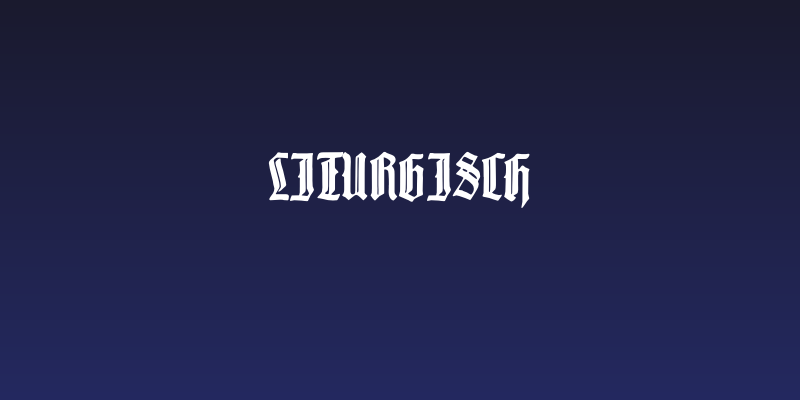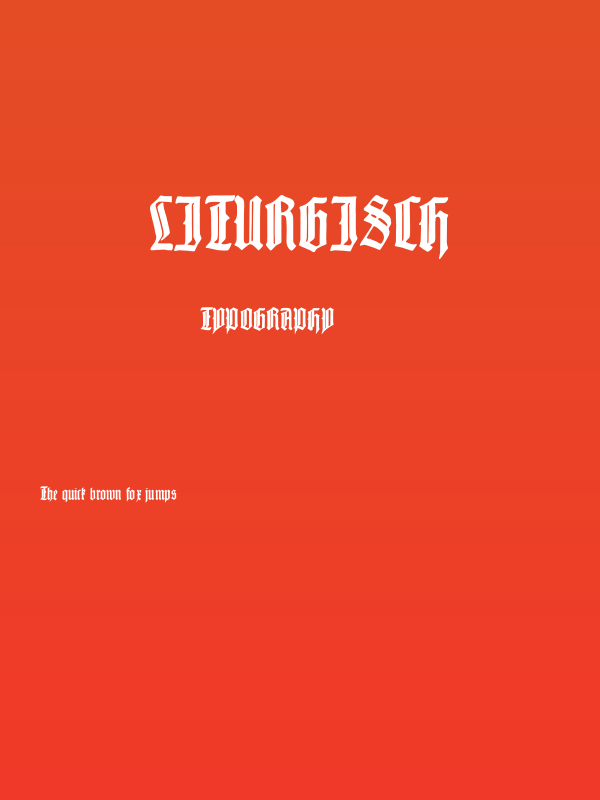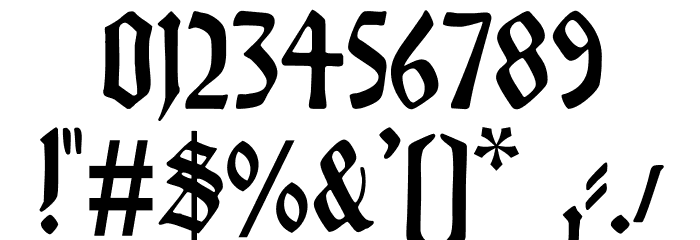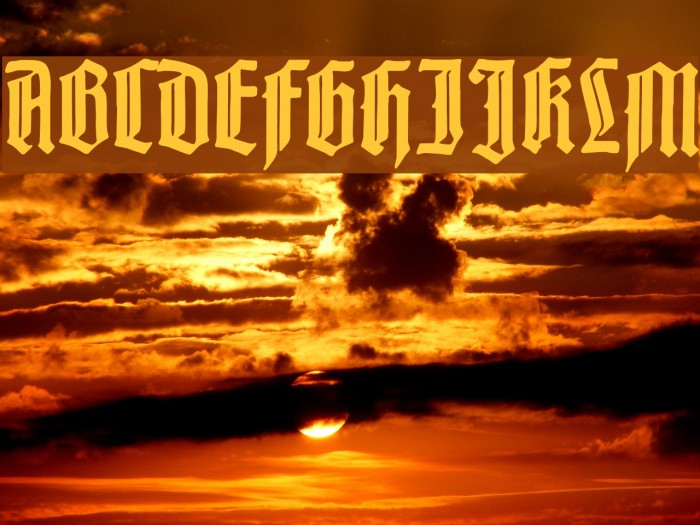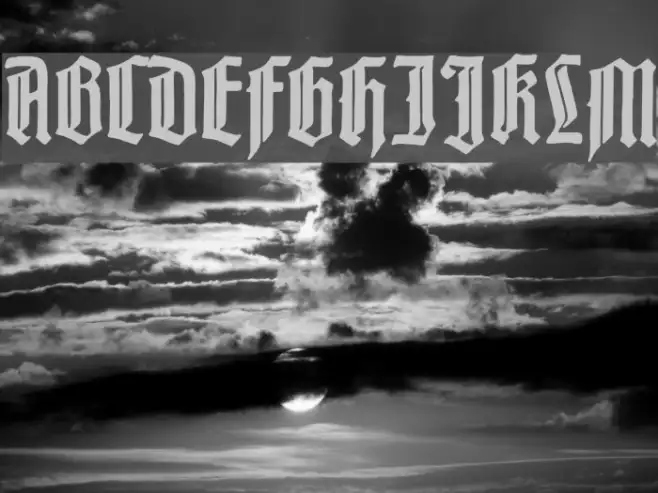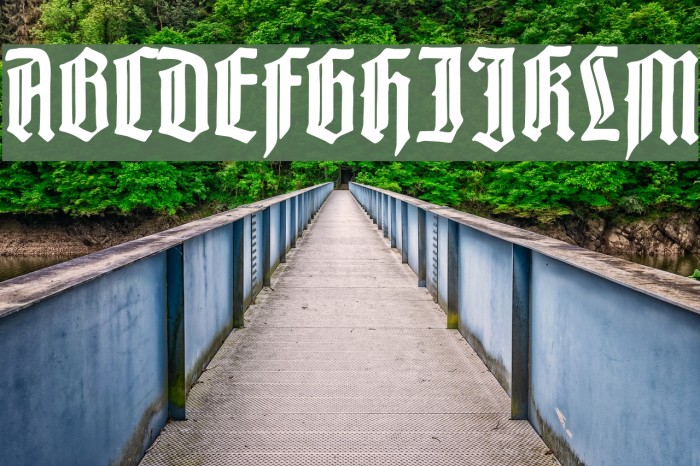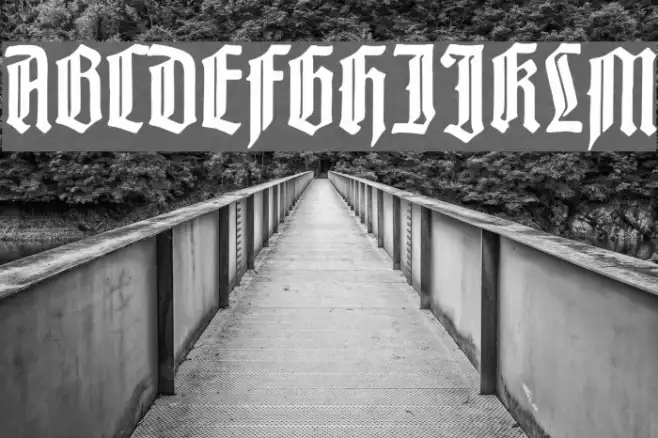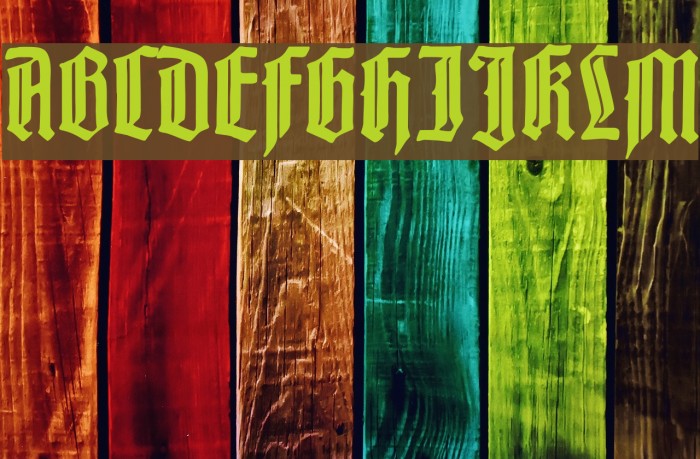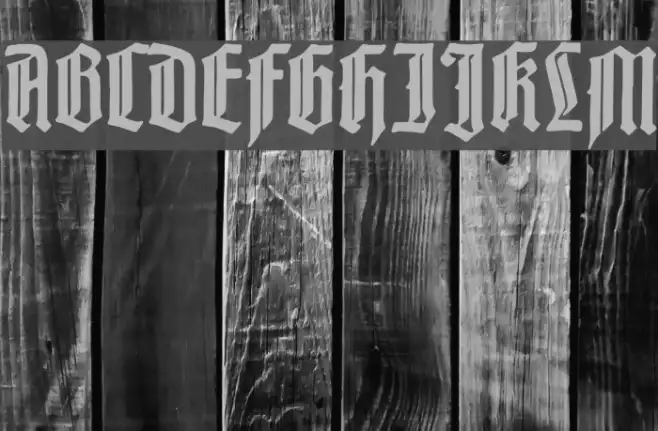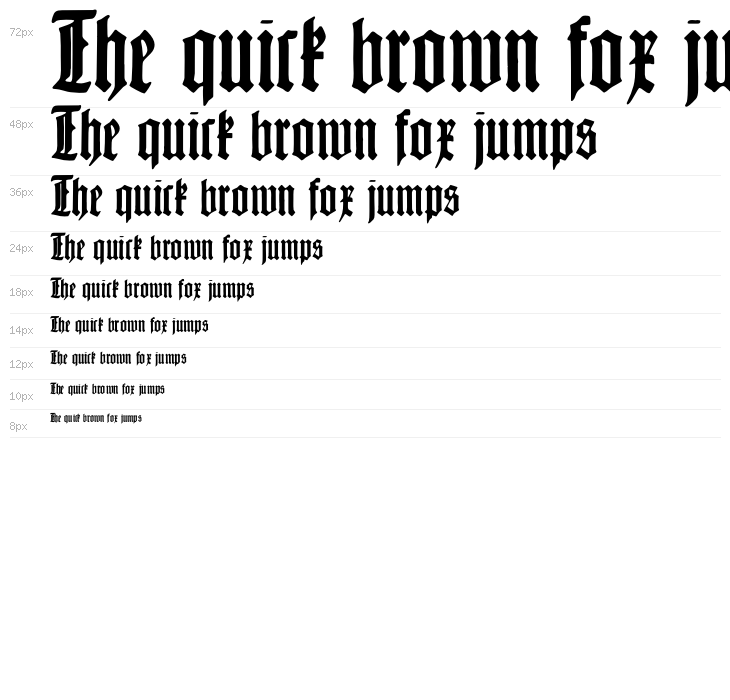
Liturgisch Font
Liturgisch Description
This font features a traditional blackletter style, characterized by its ornate and intricate design. The letters are bold and angular, with sharp edges and a distinct medieval aesthetic. The uppercase and lowercase letters maintain a consistent style, with the uppercase being slightly more elaborate. Numbers and special characters are designed to match the overall theme, providing a cohesive look. The font's historical and decorative nature makes it suitable for projects that require a touch of elegance and tradition.
| Proposed Projects | Ideal for historical documents, certificates, wedding invitations, and branding that requires a classic and elegant touch. |